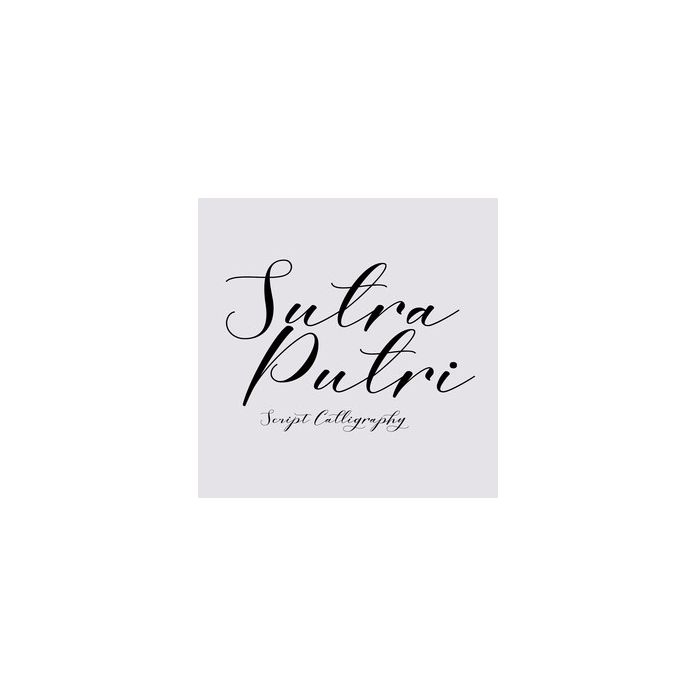
Another one that fascinated Calligraphy Sutra Putri Beautiful and vibrant handwriting style, this is the original product of handwriting, so uniformly used in today's design models. you can see and match with your big imagination!